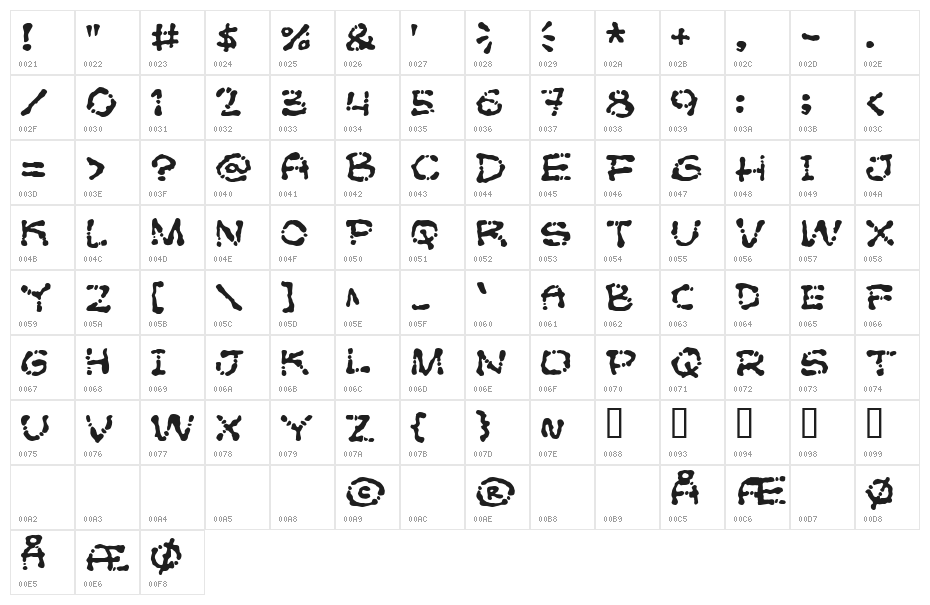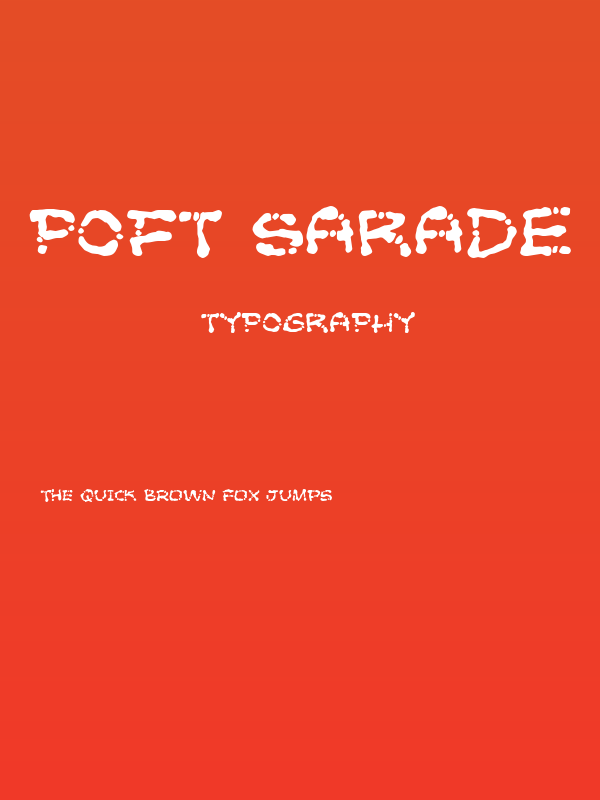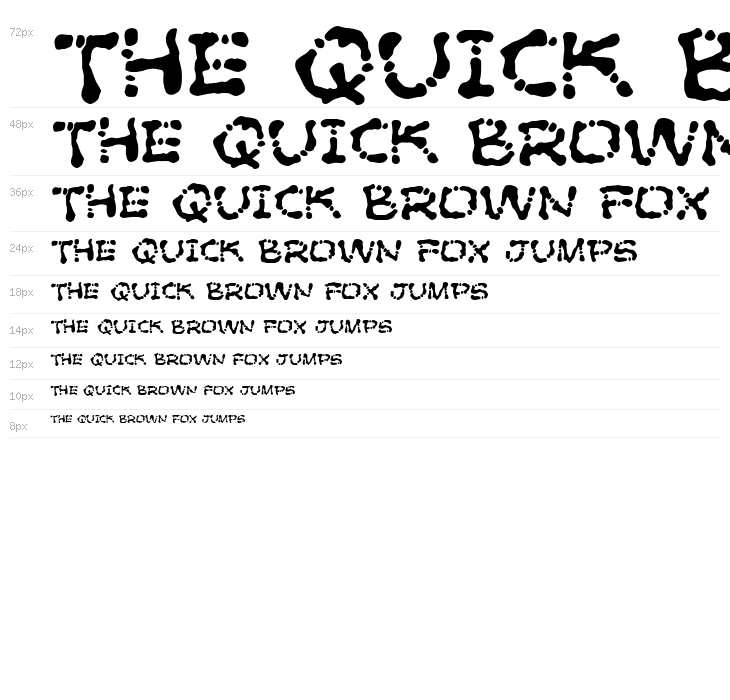
Poft Sarade Font
Poft Sarade Description
This font features a playful and irregular design, characterized by its unique, blotchy appearance. Each character is composed of uneven, rounded shapes that resemble ink splatters or paint droplets, giving it a dynamic and artistic feel. The font maintains a consistent thickness throughout, with no significant variation in stroke width, contributing to its bold and eye-catching style. Its whimsical nature makes it suitable for creative and informal applications, where a sense of fun and spontaneity is desired. The characters are well-defined, ensuring readability despite their unconventional form.
| Overall Style | Artistic, Playful |
| Proposed Projects | Ideal for children's book covers, playful branding, artistic posters, and creative event invitations. |